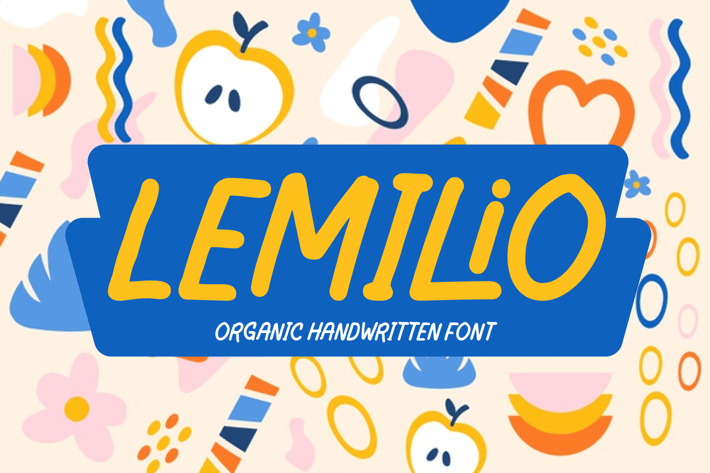
Lemilio - Organic Handwritten Font
Lemilio - a super fun and playful hand-lettered Organic typeface. It is perfect for headings, flyer, greeting cards, product packaging, book cover, printed quotes, logotype, apparel design, album covers, etc.